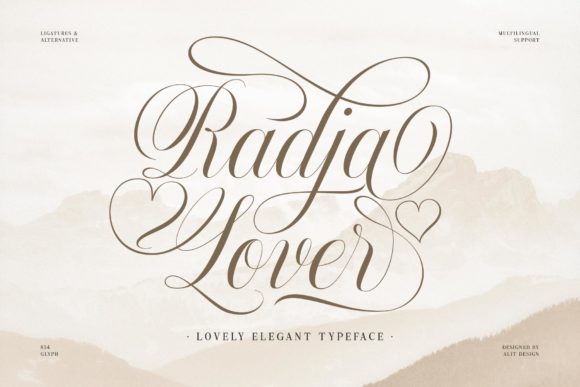
Introducing Radja Lover Script Font, the ultimate font for expressing your love and passion! Created by Alit Design, this font is specifically designed for all your romantic and heartfelt designs. Whether you're working on a Valentine's Day project or simply want to add a touch of love to your creations, Radja Lover Script is the perfect choice.
With its elegant and modern script style, this font exudes sophistication and charm. Every letter is carefully crafted to create a seamless flow and bring your words to life. But what sets Radja Lover Script apart is its unique swash in the shape of a heart. This delightful detail adds a whimsical touch to your designs, making them truly one-of-a-kind.
One of the standout features of Radja Lover Script is its PUA encoding. This means that accessing all the glyphs and swashes is incredibly easy. You'll have the freedom to experiment and customize your designs with just a few clicks. Let your creativity run wild and create stunning typography that captures the essence of your message.
Whether you're designing wedding invitations, love letters, or even branding for a romantic business, Radja Lover Script is the ultimate tool to convey your emotions. Its versatility allows it to adapt to any project, ensuring that your designs are always on point.
But Radja Lover Script goes beyond just being visually appealing. It has the power to evoke emotions and create a strong connection with your audience. The moment they lay their eyes on your designs, they'll be captivated by the heartfelt message conveyed through the font. It's the perfect way to make a lasting impression and leave a mark on their hearts.
Remember, love knows no boundaries, and neither should your creativity. Let Radja Lover Script be your partner in spreading love and joy through your designs. Get ready to create something truly extraordinary. Download Radja Lover Script today and let your imagination soar!